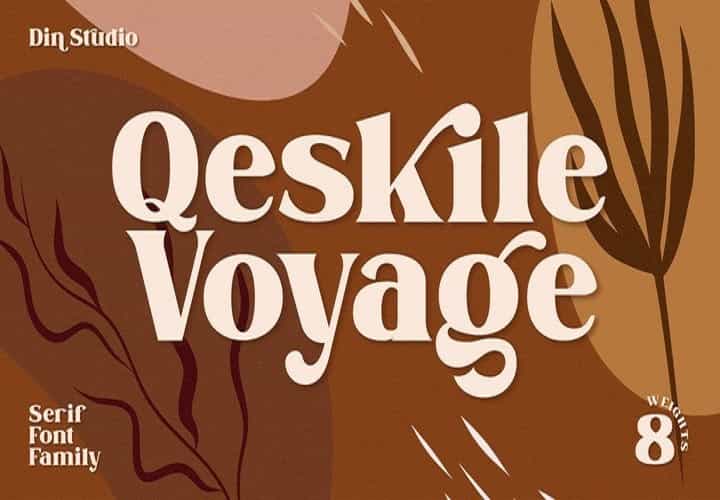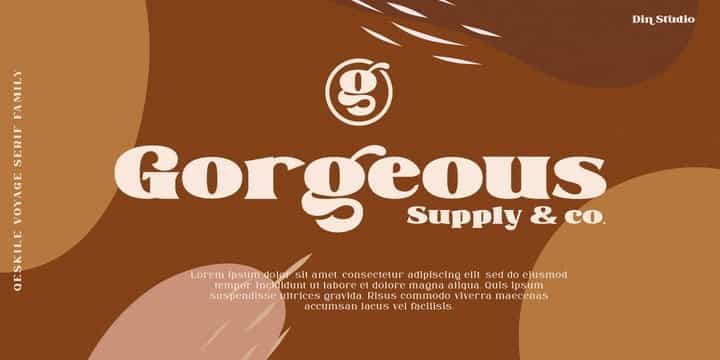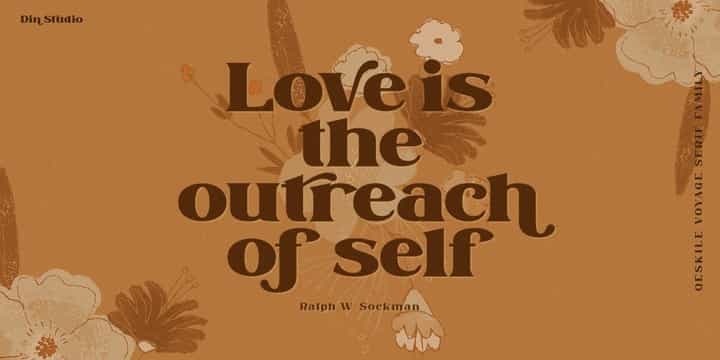
Qeskile Voyage is a geometric serif font that an emphasis on rationality when designing every form. Through the use of sharpness the eyes and stay rational, ensuring that the balance is preserved throughout each type. Thus, it will be an elegant, tidy and perfect look.